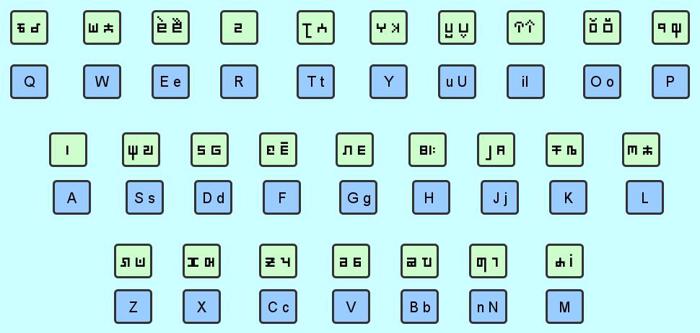
Hinglish nikolevna Font
this font is purely based on devanagri script and it is a duplicate font for hindi except for the vowels which do not follow the rules of hindi in which vowels are written separately